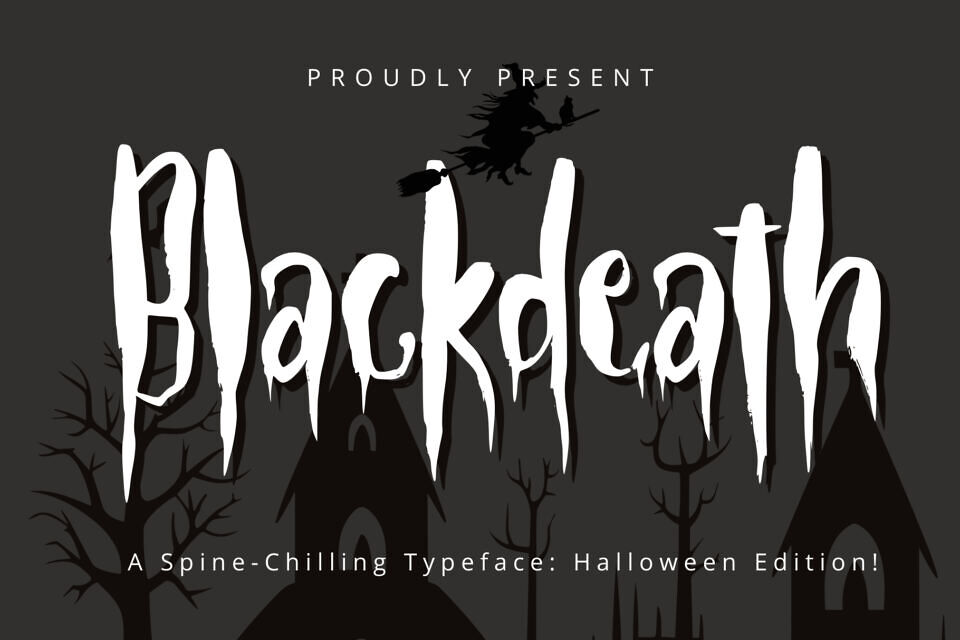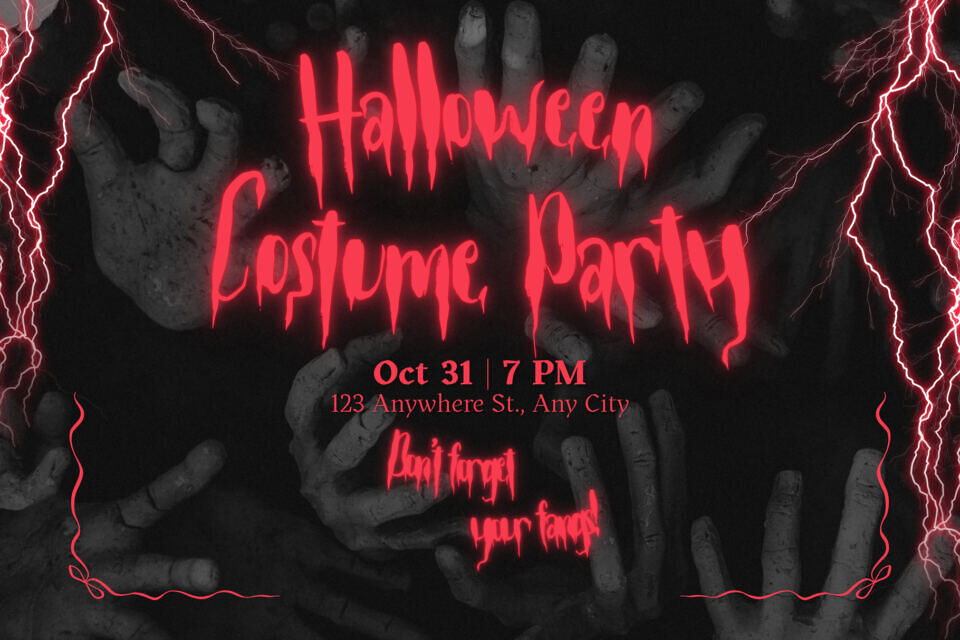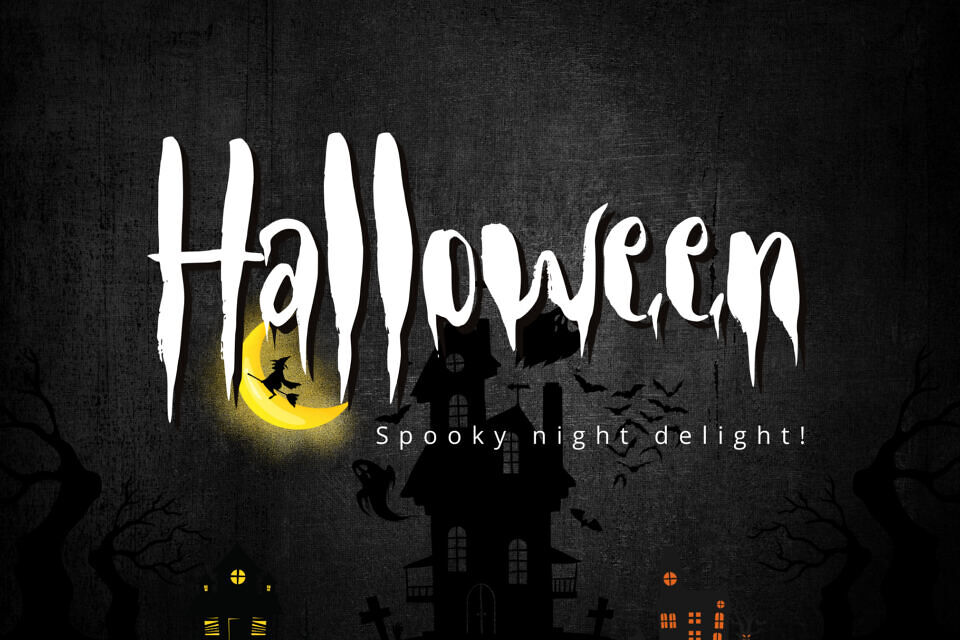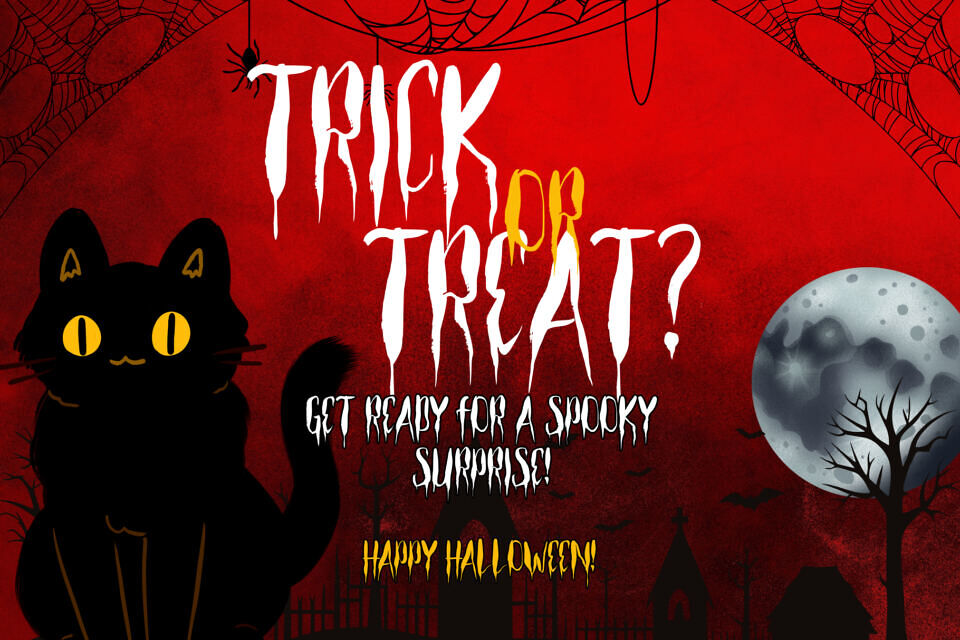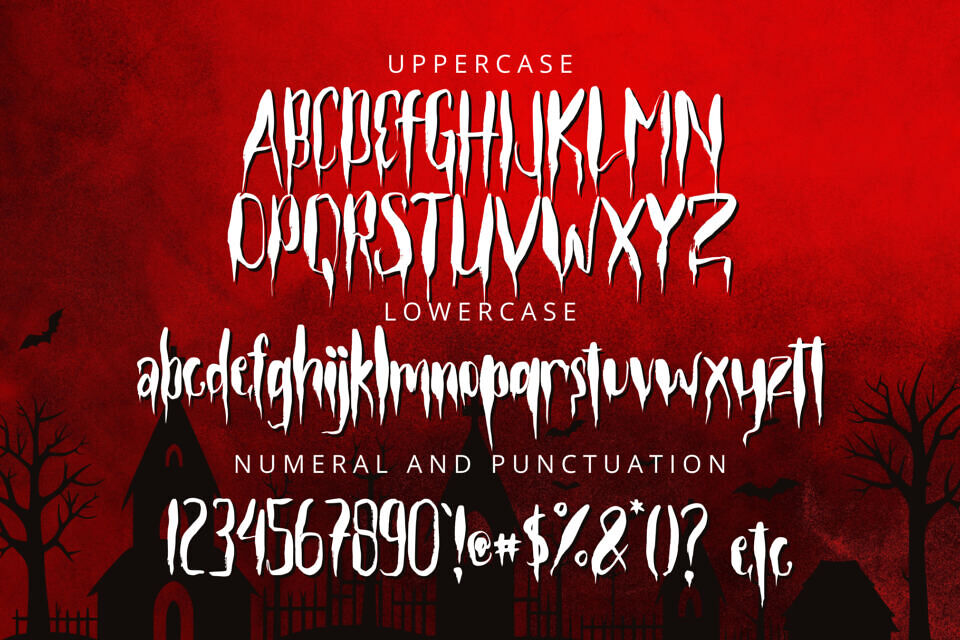
Inspired by dripping blood and eerie Halloween imagery, Blackdeath is a horror display font. Its terrifying liquid style and sharp strokes give each letter a terrifying, fearful appearance.
This typeface is ideal for eerie quotes, horror movie titles, Halloween posters, haunted party invitations, and any other design that requires a spooky element. Your project will stand out right away and create a genuinely spooky atmosphere with Blackdeath.